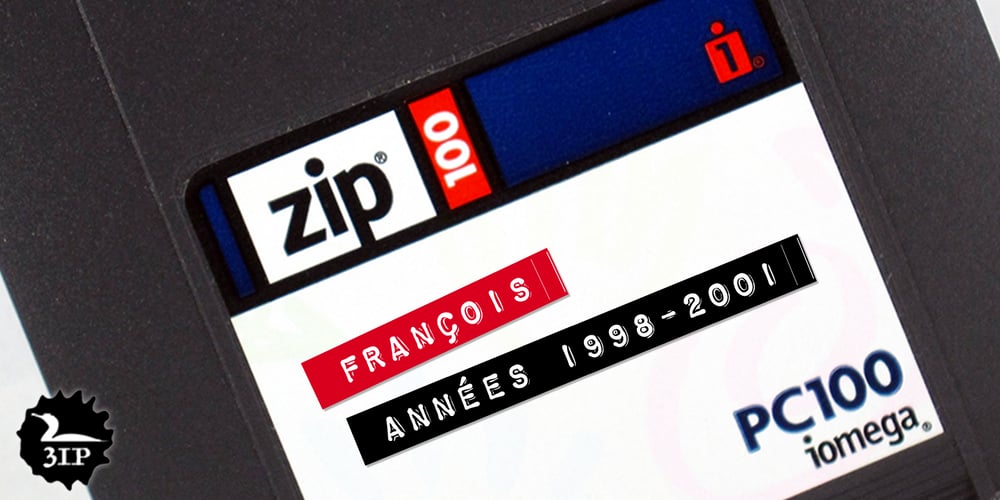
Chromosome
Chromosome font
Chromosome Font Family was designed by Brian Willson and published by Three Islands Press. Chromosome contains 4 styles and family package options. It hit me one day that the ’60s-vintage labelmaker I had lying around might make an interesting display face. I began playing with it — clicking out letters at various pressures, scanning the results, going over the scans in a vector-graphics program. Looked pretty good. To my chagrin, however, I soon afterward got a glimpse of someone else’s label-tape font. Though modeled after a more modern device, its rocketing popularity prompted me to set Chromosome aside for a year or so. Finally finished it up in late-1995. Full release has light and heavy weights, regular and reversed styles.